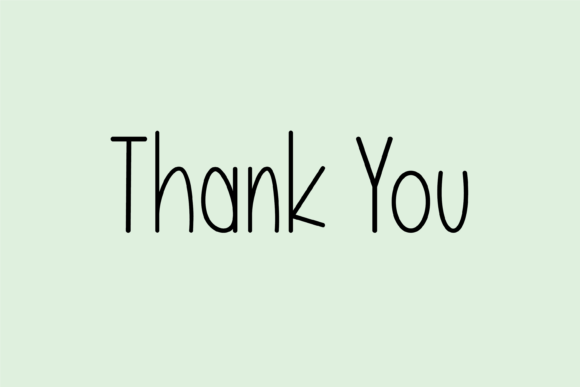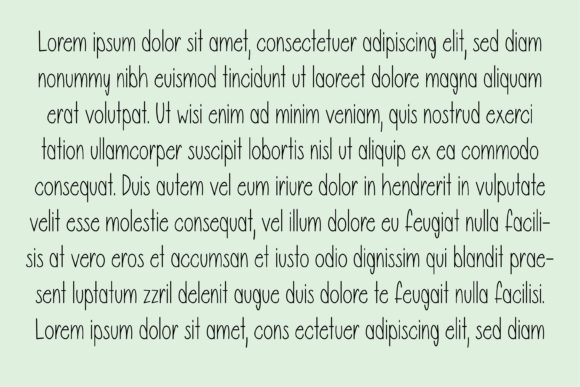
Introduction to Largey Font
Have you ever stared at a blank page, eager to bring a creative project to life, but struggling to find the perfect font to set the tone? This is where the magic of typography comes in – and Largey Font is here to make your day. With its playful, handwritten charm, this font is sure to add a personal touch to your designs, making them stand out in a crowded space.
As a valuable resource for designers, Largey Font offers a unique combination of whimsy and sophistication. Its high-quality design makes it perfect for a wide range of applications, from logos and wedding invitations to quotes and advertisements. And the best part? This lovely font is available for free download, making it an instant addition to your design arsenal.
- Unique characteristics: elegant, modern, and highly legible, making it perfect for a wide range of creative projects
Honest Review: Largey Font
I recently came across the Largey Font and was excited to give it a try. As a designer, I’m always on the lookout for high-quality fonts that can elevate my creative projects.
One of the things that works well with the Largey Font is its versatility. It’s a great option for a wide range of design applications, from logos to typography-based designs. The font is also available for free download, making it a fantastic resource for designers on a budget. ✨
- High-quality design: The Largey Font has a clear, crisp design that’s perfect for displaying text.
However, I did notice a few limitations. The font is only available in a limited number of weights, which may not be ideal for designers who need a lot of flexibility in their typography. Additionally, the font may not be suitable for very small text sizes. ⚠️
Overall, I’m impressed with the Largey Font. It’s a great option for designers who are looking for a high-quality, versatile font that’s easy to use. While it may have a few limitations, I think it’s definitely worth checking out.
Getting the Most Out of Largey Font
To get the most out of Largey Font, use it for headings and titles in your designs. You can also use it to create a consistent brand identity across your creative projects.
Largey Font is commonly used for:
- Creating eye-catching headings and titles
- Designing brand identities and logos
- Creating social media graphics and ads